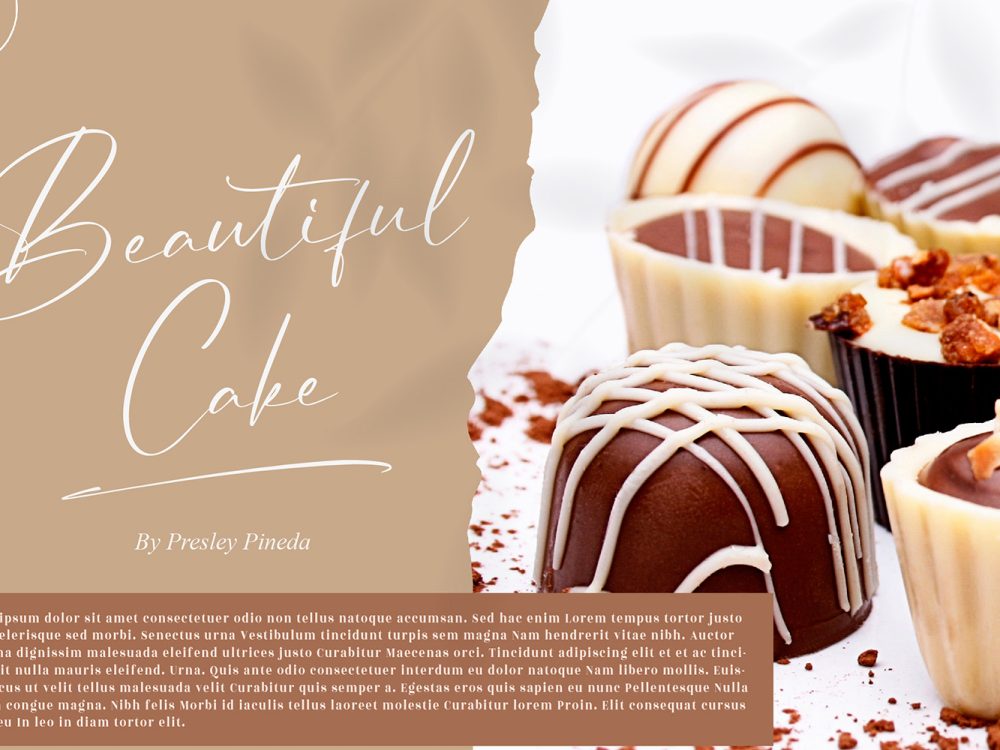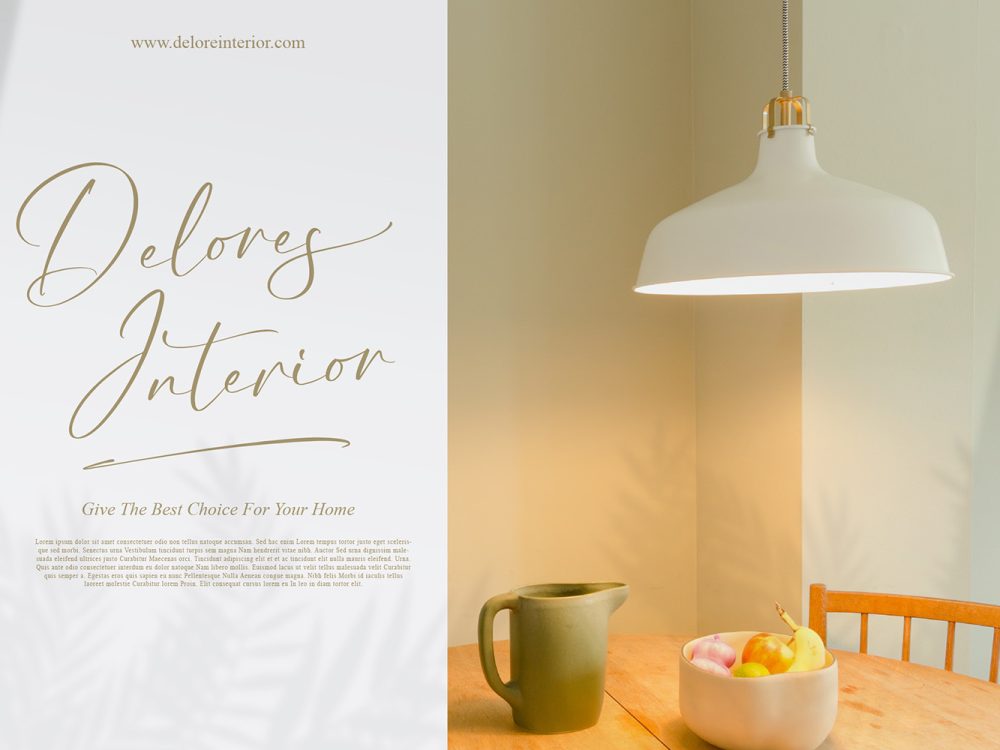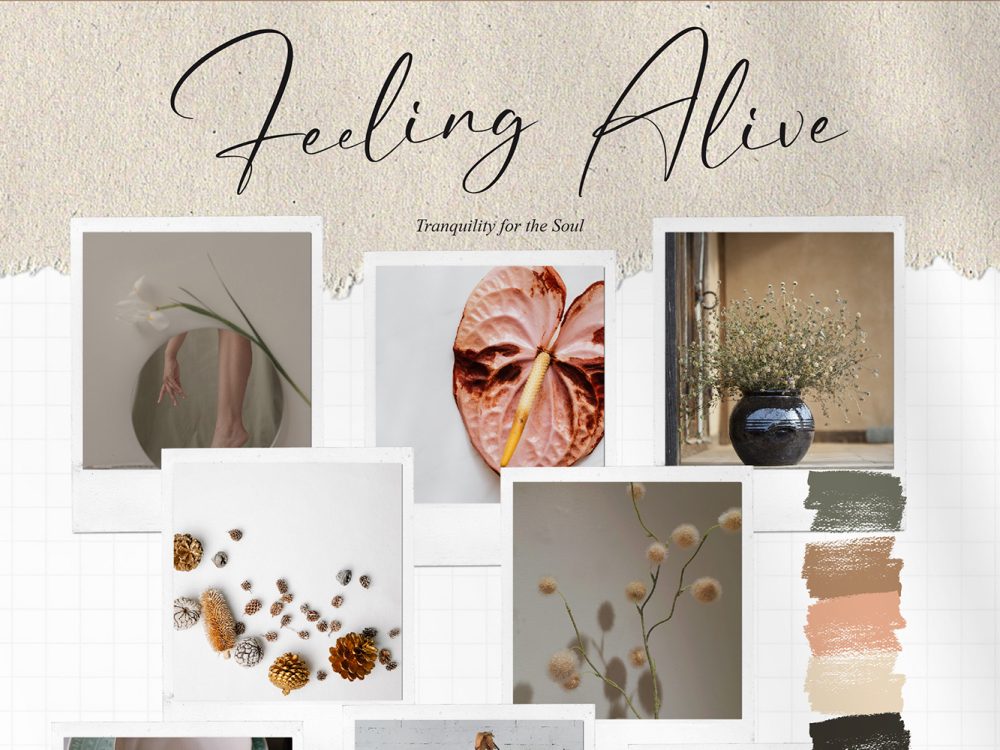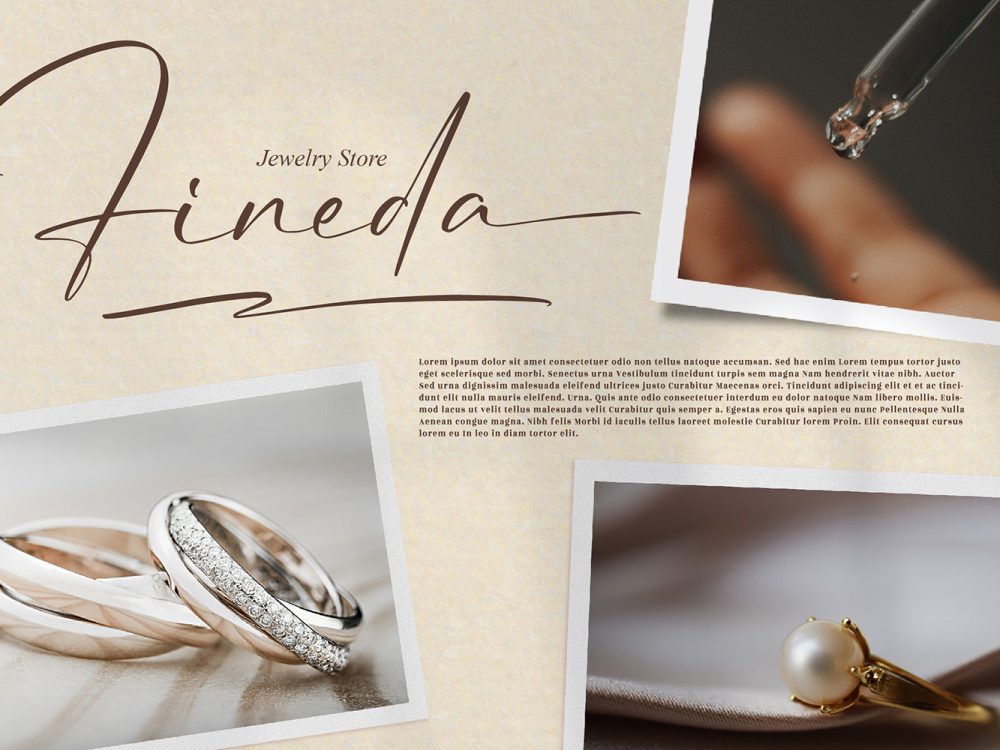
Step into the future with Futuristic Bright Free Font, a delicate and elegant script font with slender letterforms. Let yourself be captivated by its enchanting style and wield its beauty to craft stunning designs that captivate the eye. If you like it don’t forget to check out the full version.